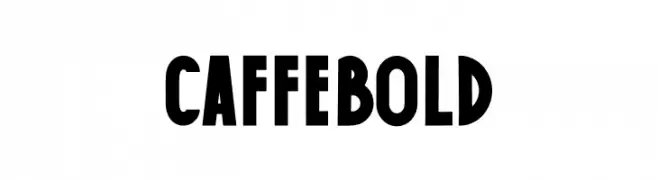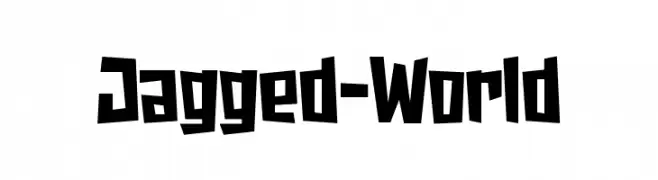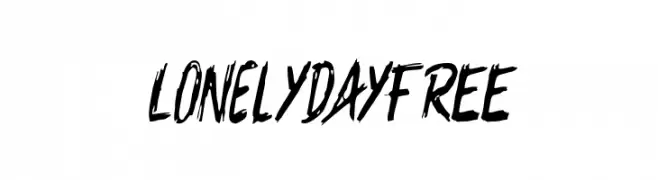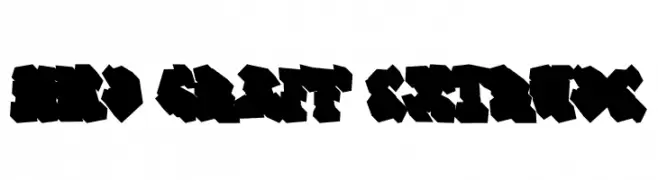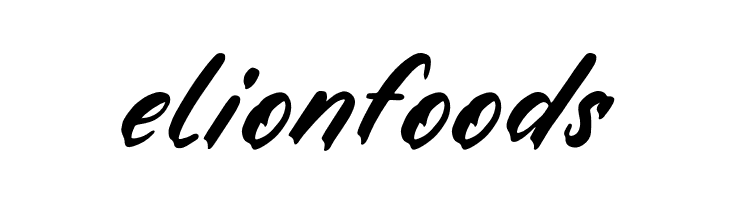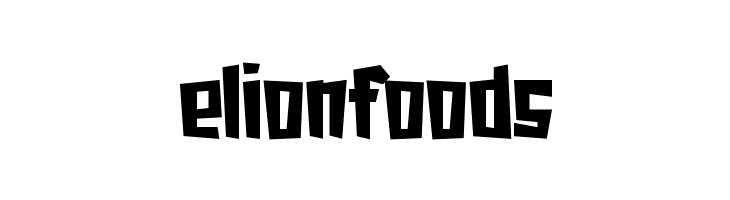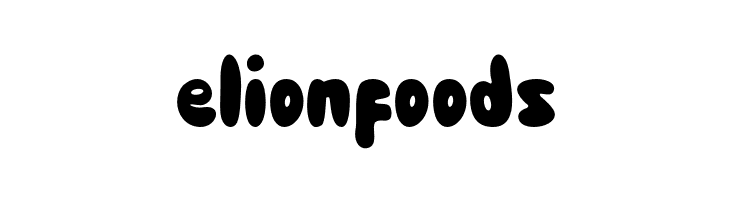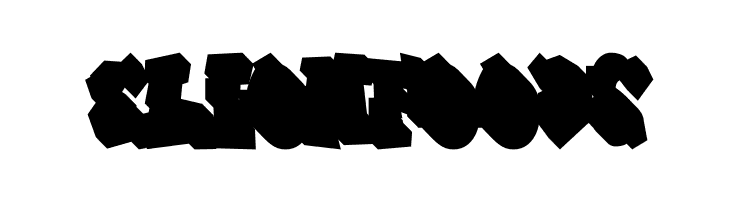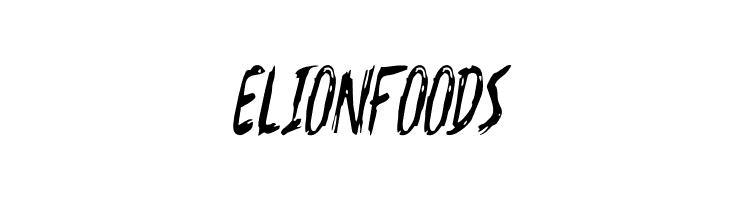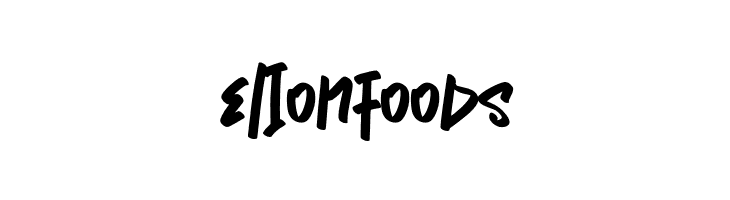
A bold, geometric font with high contrast and a slightly condensed style.
A bold, cursive font with dynamic and energetic strokes.
A bold, jagged font with sharp angles and an edgy, dynamic style.
A playful, bold font with rounded, bubbly characters ideal for fun and whimsical designs.
A bold, graffiti-inspired font with a 3D extruded effect, ideal for dynamic and urban designs.
A bold, brush-style font with sharp, jagged edges and dynamic strokes.
A bold, graffiti-inspired font with dynamic, angular shapes.
A playful, school-themed handwritten font with doodle-like illustrations.
A dynamic and edgy font with sharp, elongated strokes and a bold appearance.
A vintage-inspired font with elegant, narrow characters and unique flourishes.